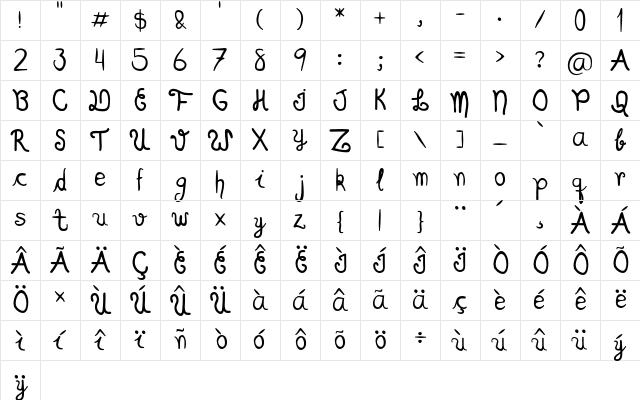
Scriptia Happy flows with the natural rhythm of handwritten lettering, making it ideal for designs that call for warmth and personal expression.
Font Pairing: Combine Scriptia Happy with a simple geometric sans for maximum contrast - the tension between flowing curves and clean structure is a classic typographic pairing.
Pro Tip: Use Scriptia Happy for short runs of text - names, titles, or taglines. Extended body copy in script faces tires the eye quickly.